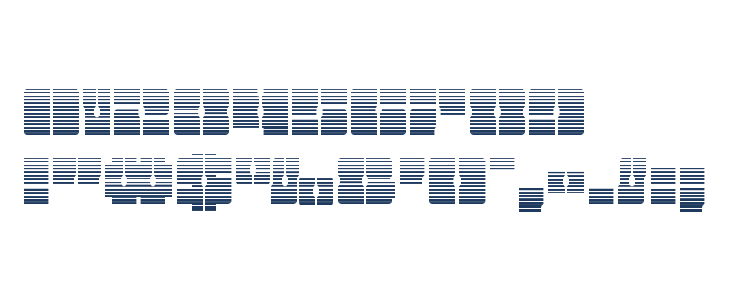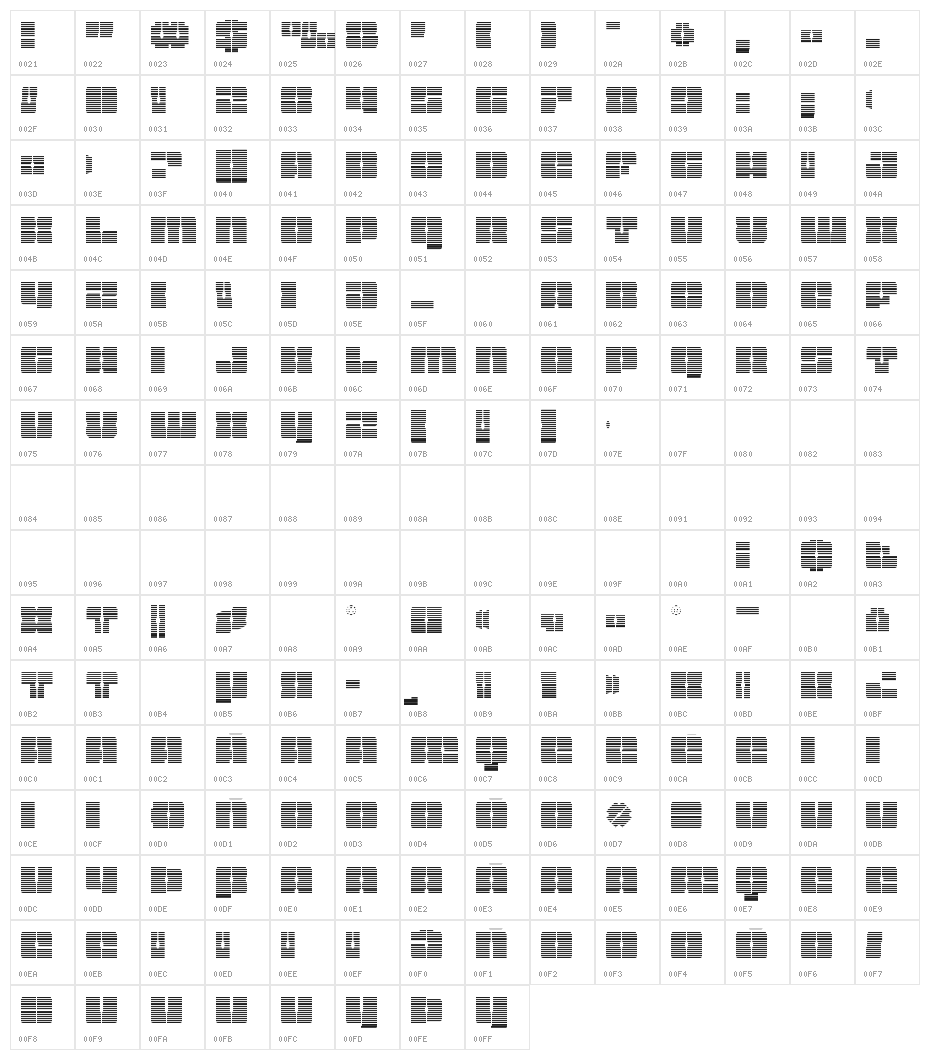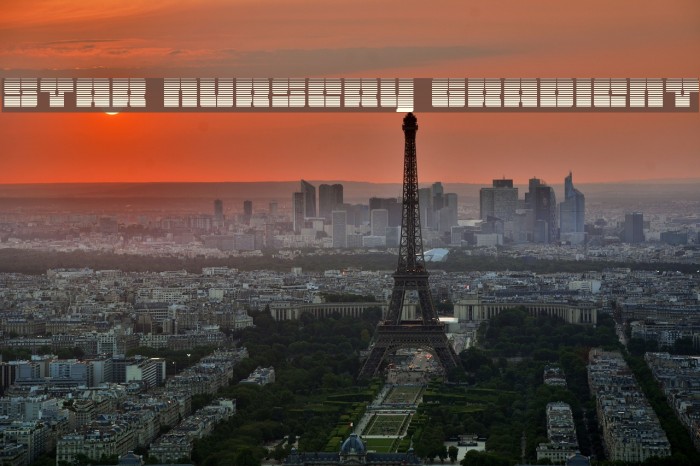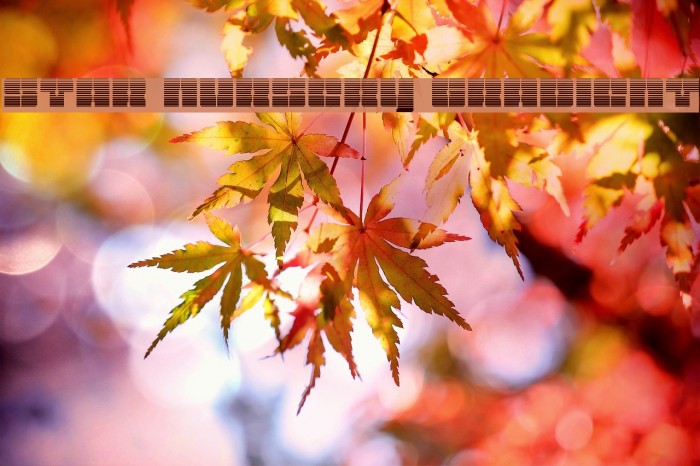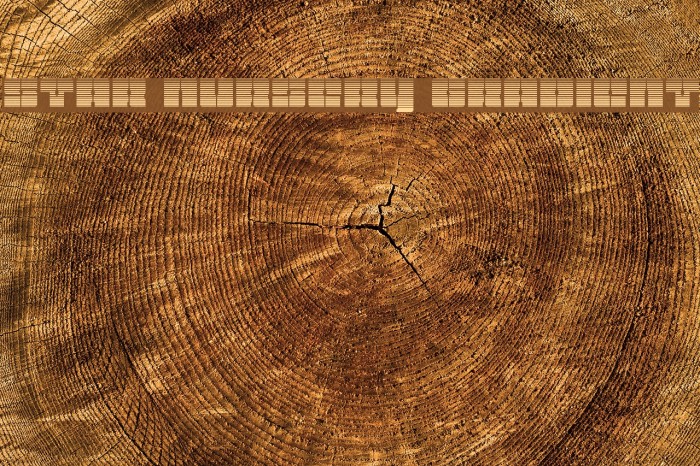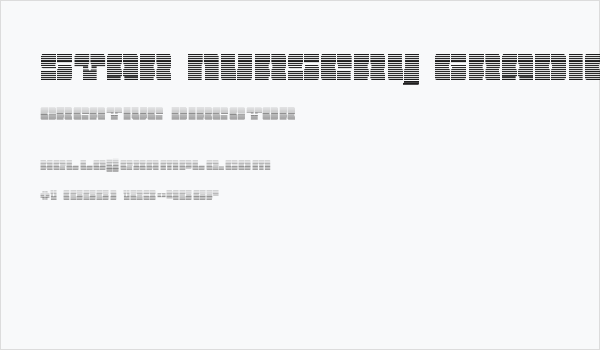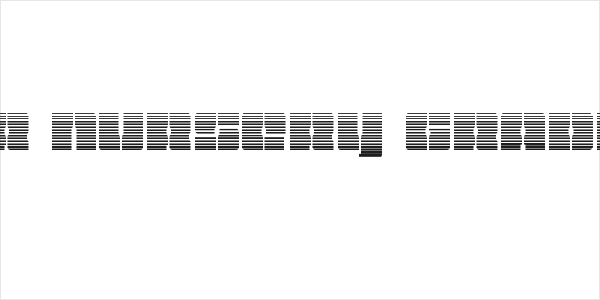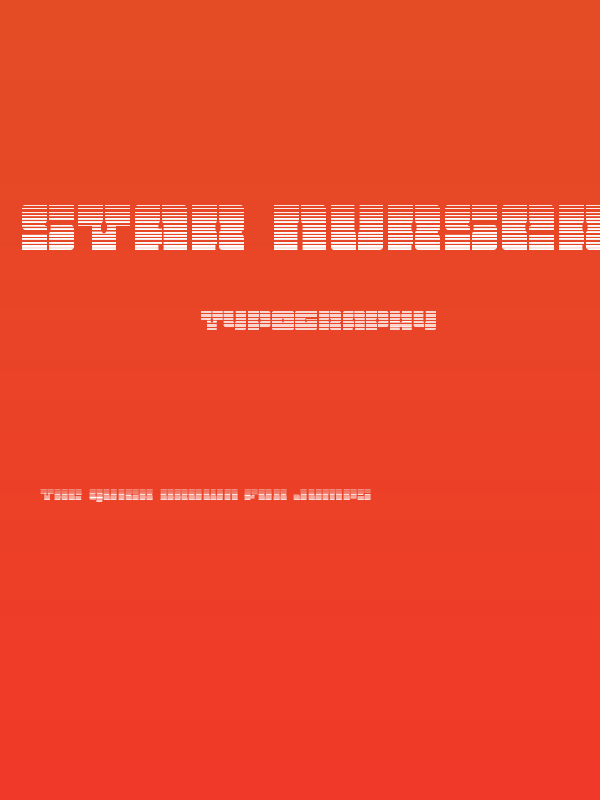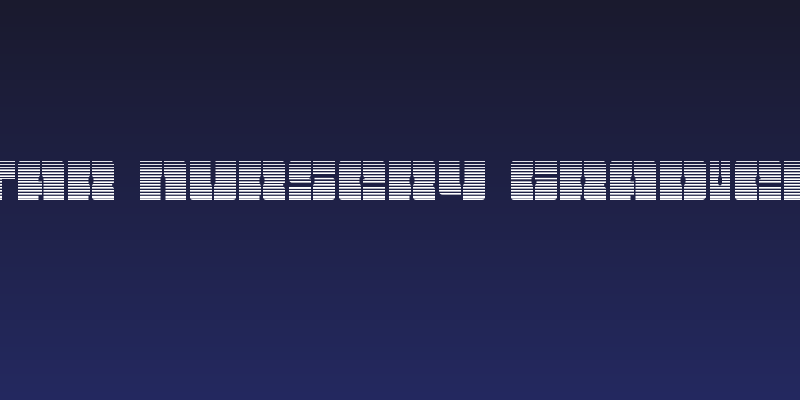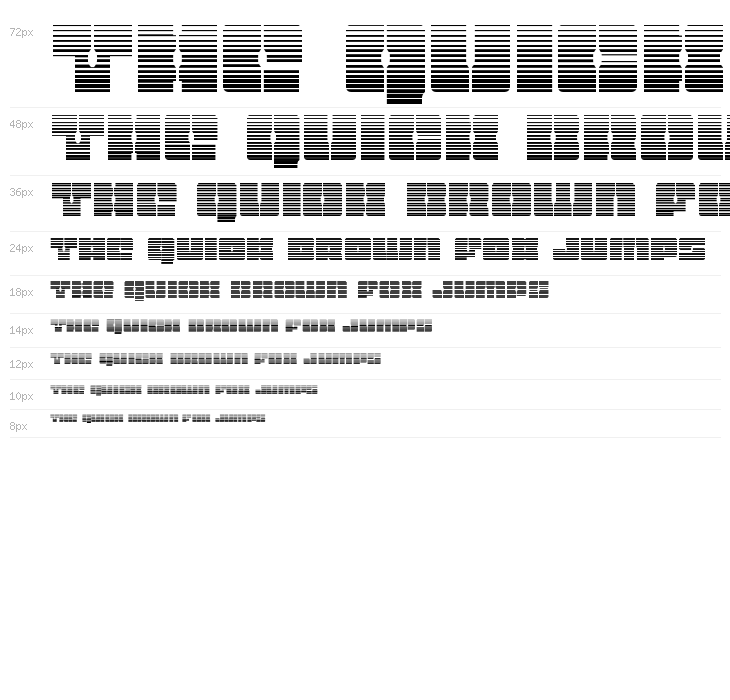
Star Nursery Gradient Font
Star Nursery Gradient Description
This font features a unique design with a horizontal striped pattern that creates a visually striking effect. Each character is composed of parallel lines, giving it a futuristic and digital appearance. The uppercase and lowercase letters maintain a consistent style, with the stripes providing a sense of movement and energy. The numbers and special characters are designed to match the overall aesthetic, ensuring a cohesive look across all elements. This font is ideal for projects that require a bold and modern touch, making it perfect for headlines, posters, and digital media.
| Use Case | Headlines, Posters, Digital Media |
| Proposed Projects | Ideal for futuristic designs, tech-themed posters, digital media, and modern branding projects. |